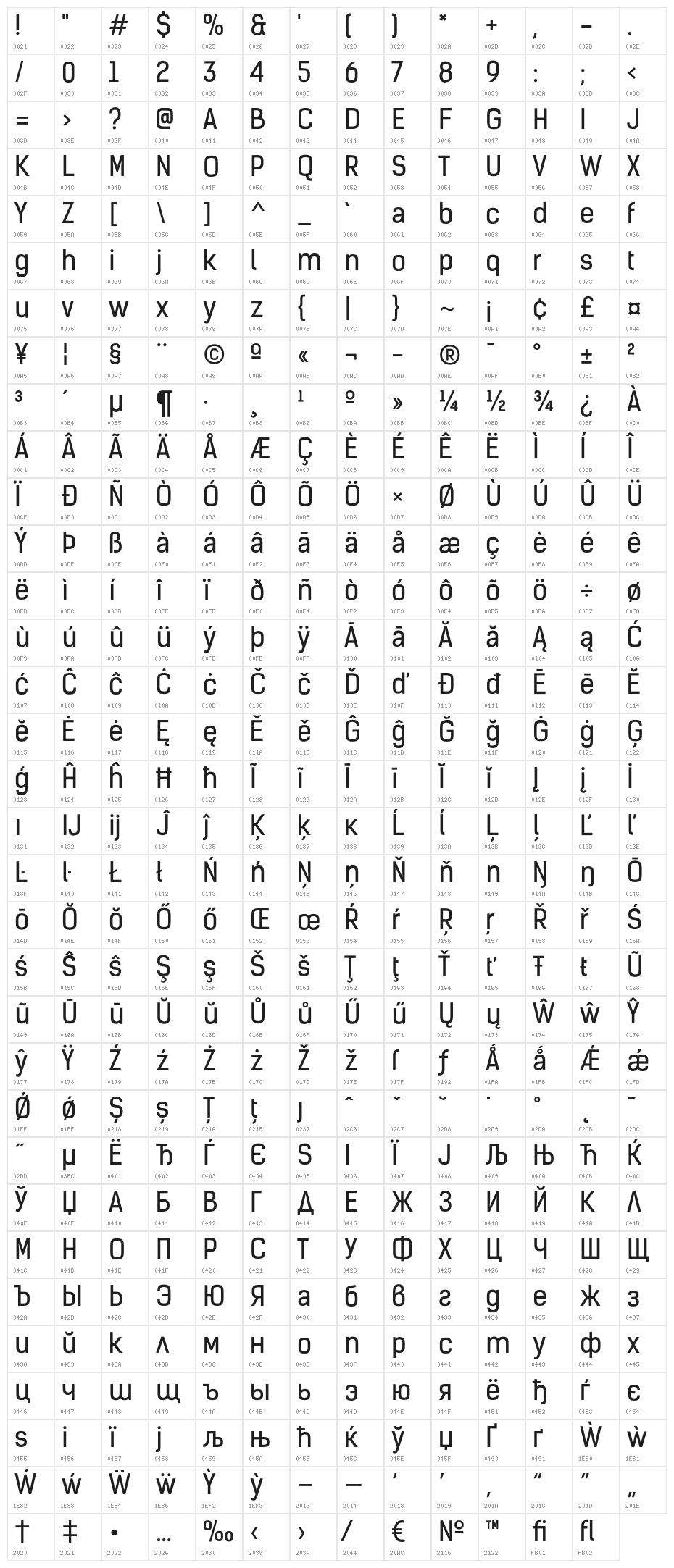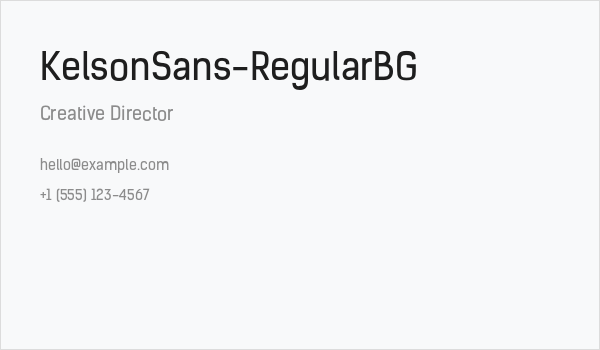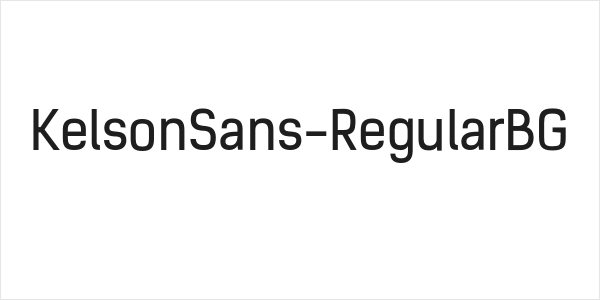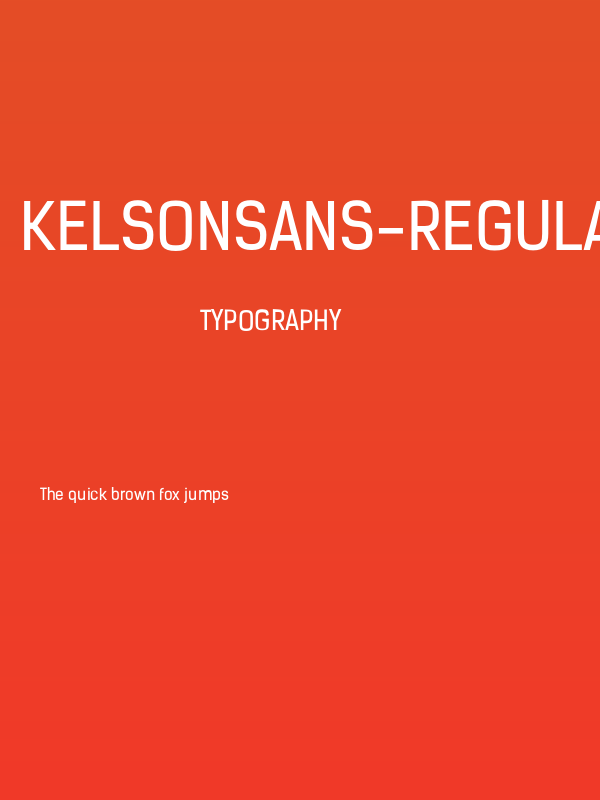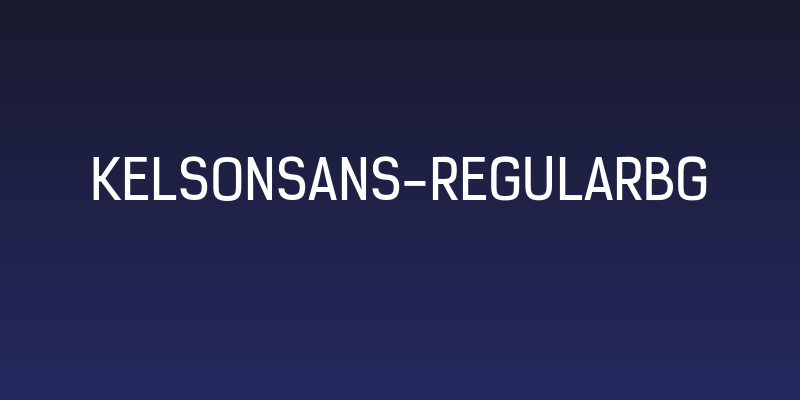
KelsonSans-RegularBG Font
KelsonSans-RegularBG Description
This typeface features a clean and modern sans-serif design, characterized by its geometric shapes and uniform stroke widths. The letters are well-proportioned, offering a harmonious balance between the height and width of each character. The uppercase letters are bold and assertive, while the lowercase letters maintain a friendly and approachable appearance. The numerals are clear and easily distinguishable, making them suitable for both digital and print formats. The special characters are designed with precision, ensuring consistency across the entire typeface. This font is versatile and can be used in a variety of design contexts, from corporate branding to digital interfaces.
Proposed ProjectsIdeal for corporate branding, digital interfaces, editorial design, and advertising campaigns.